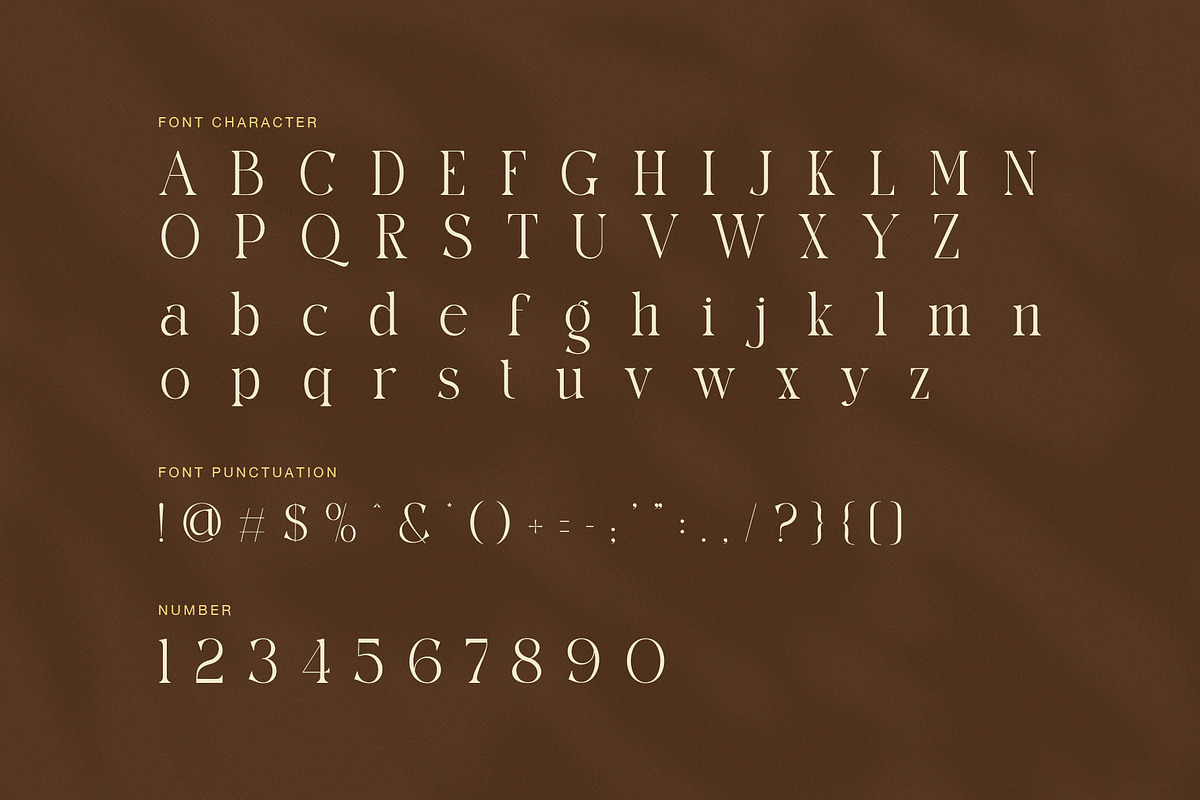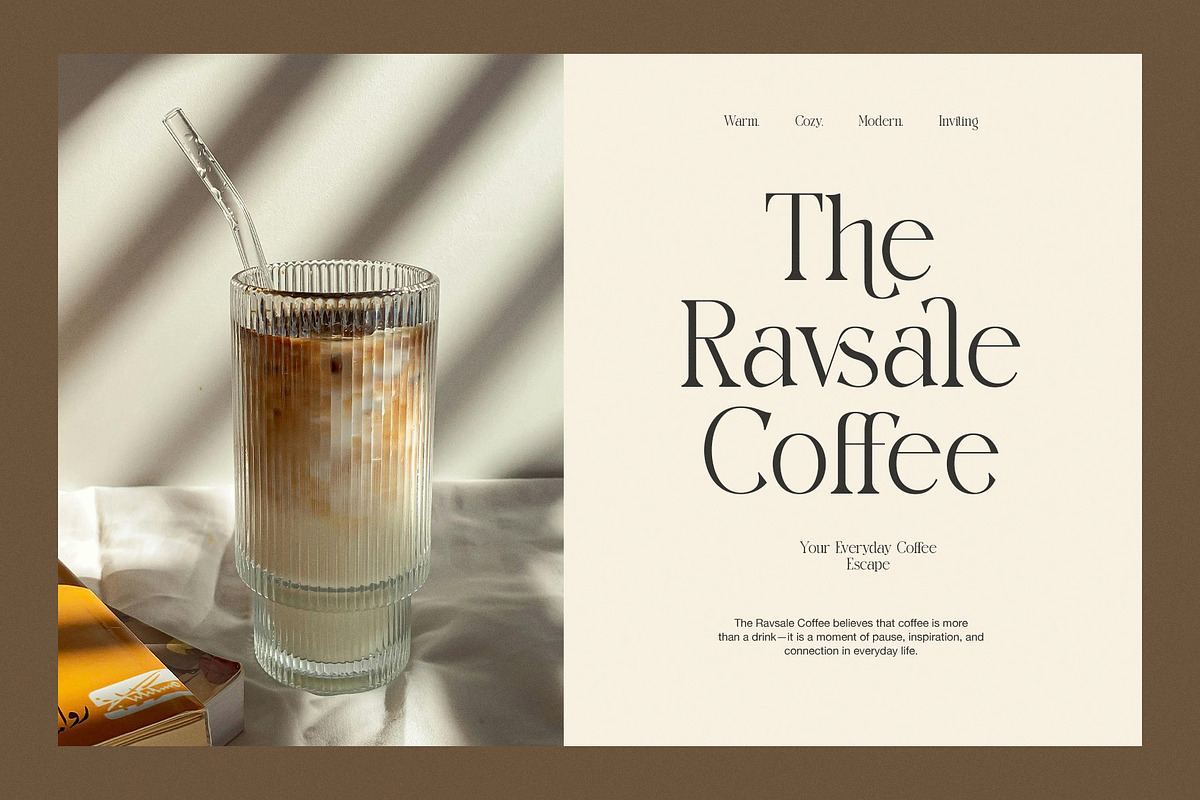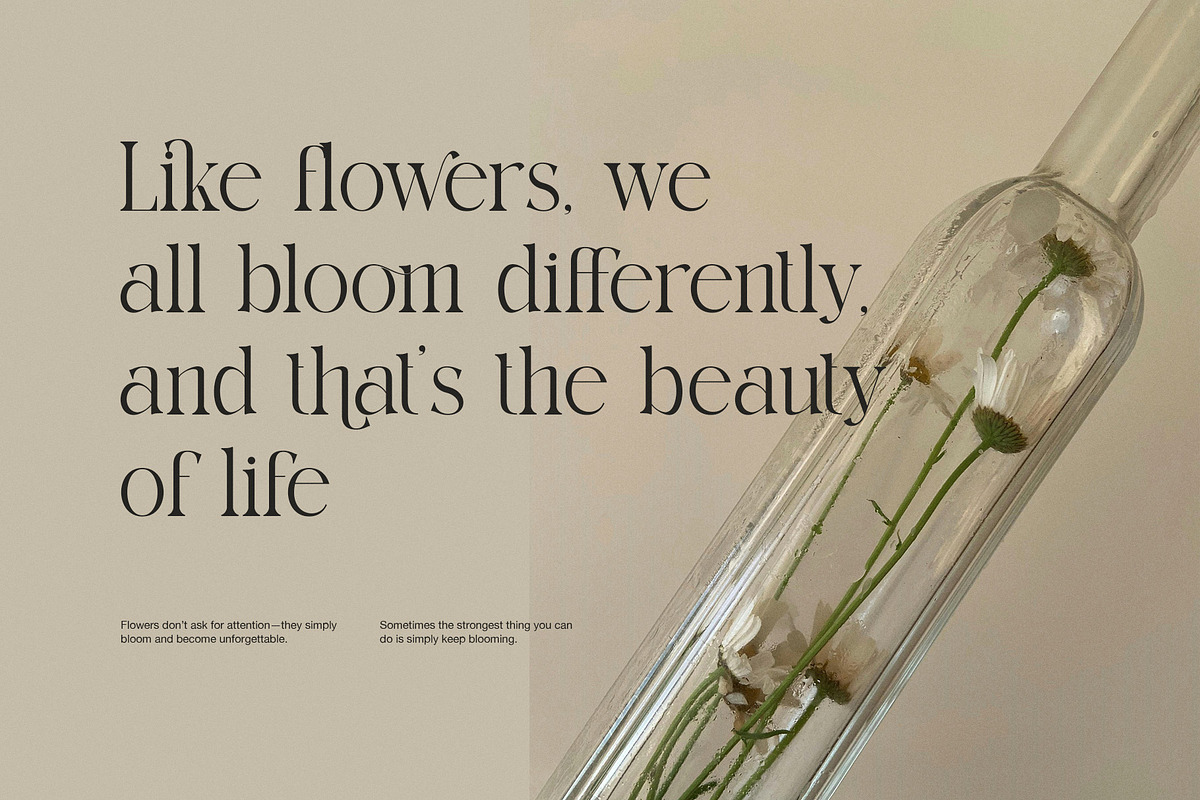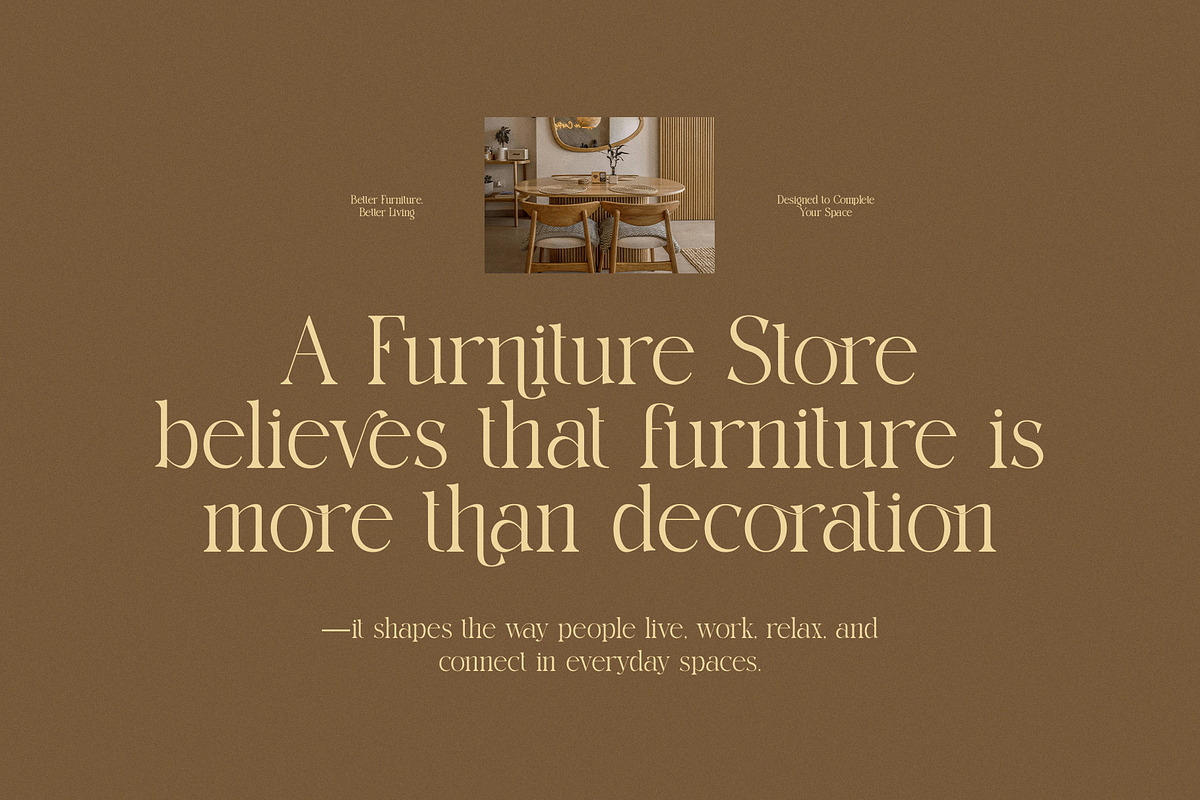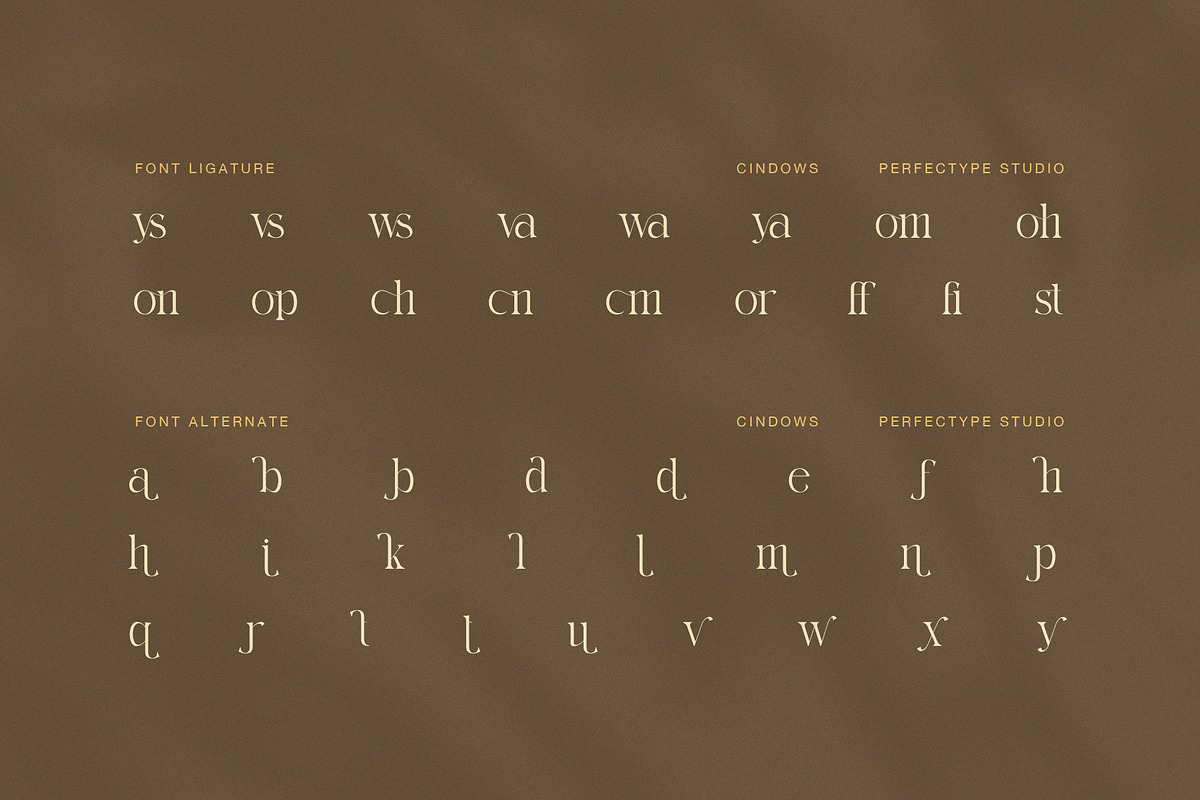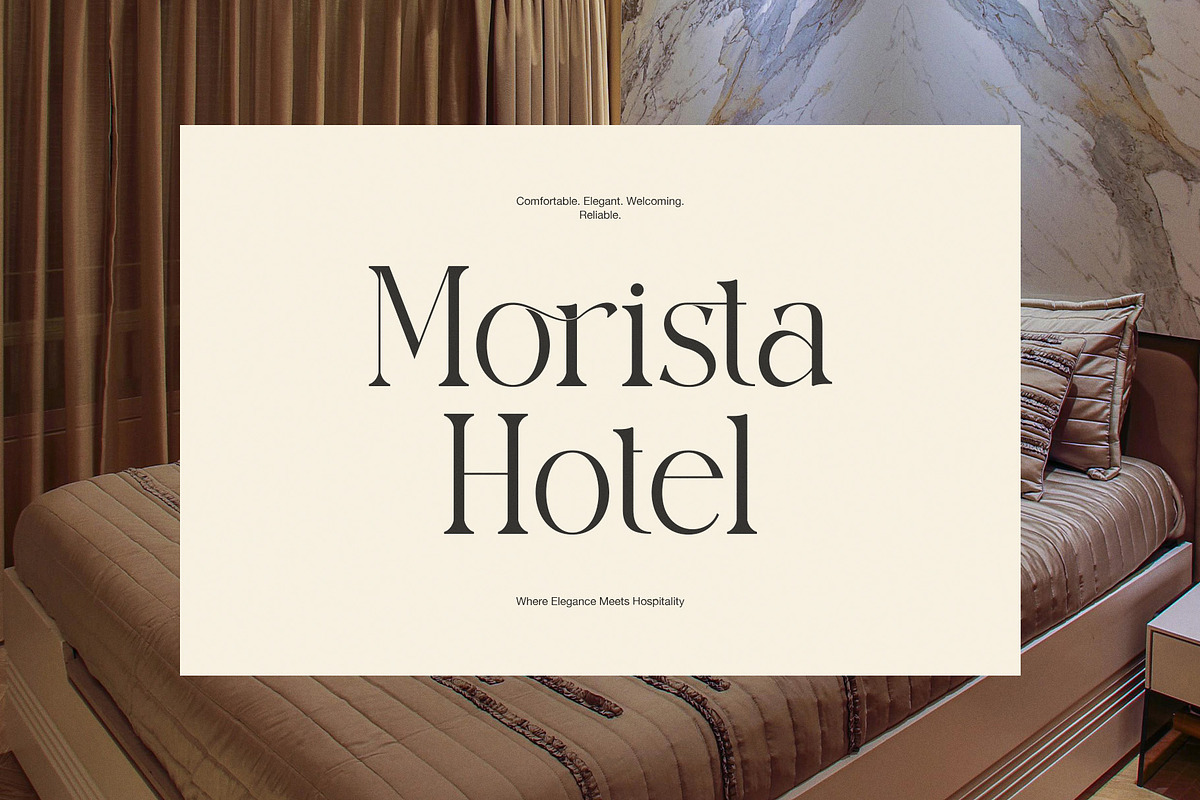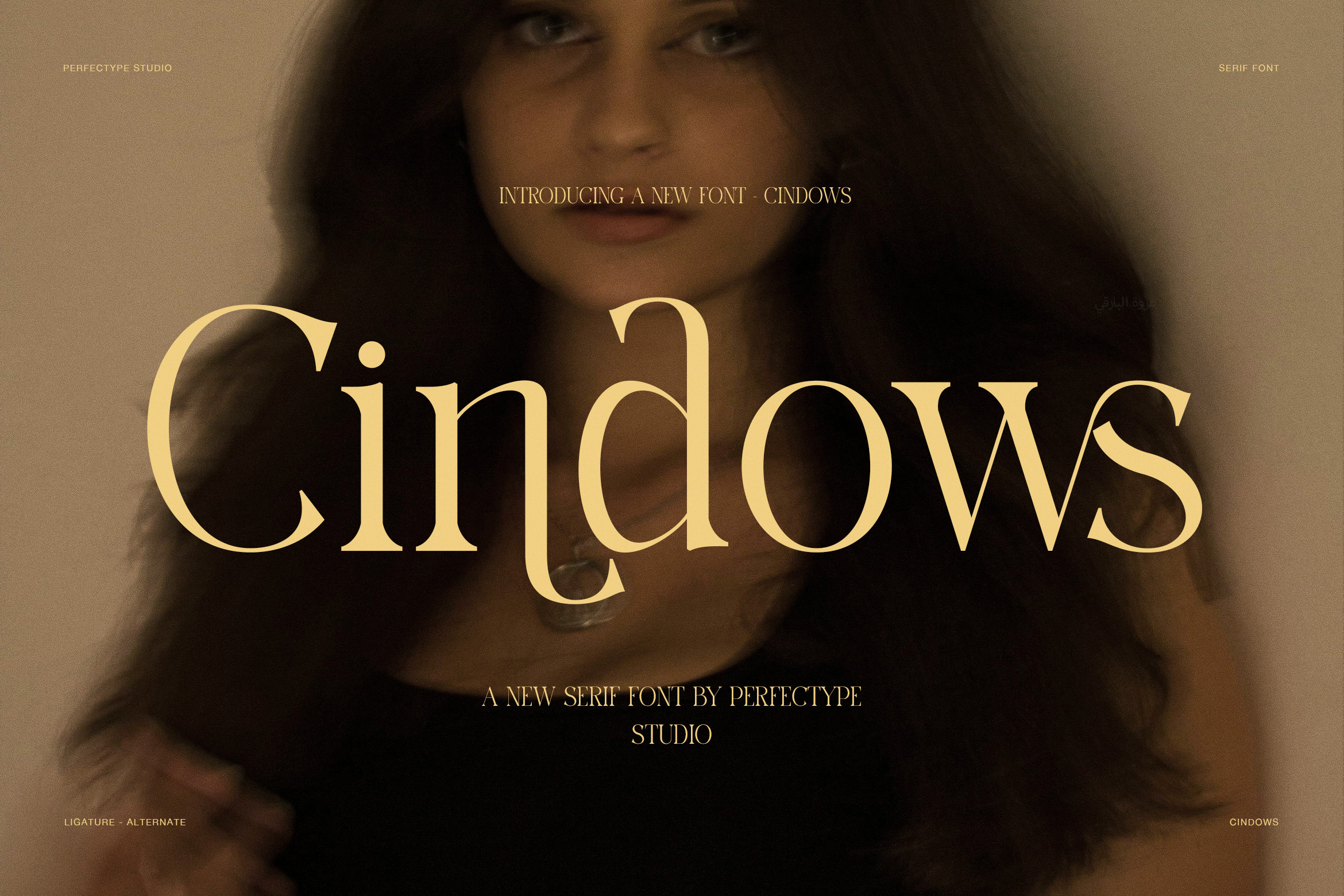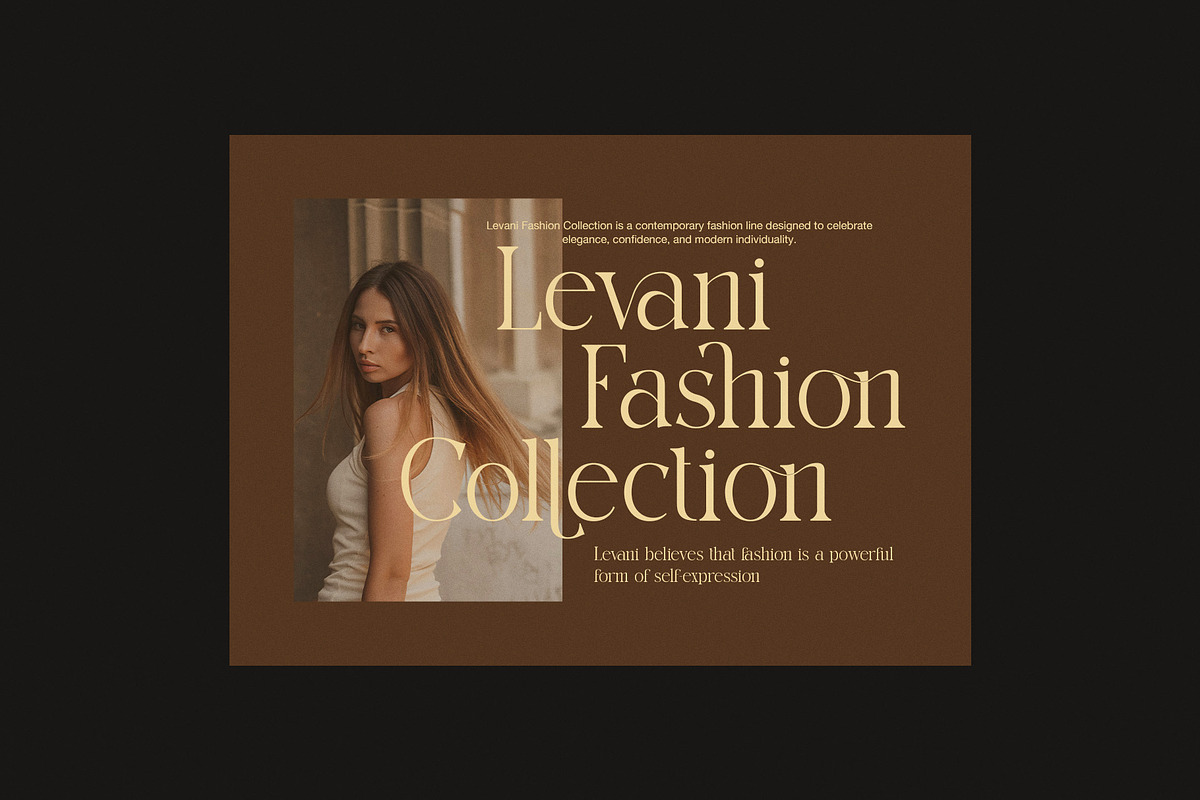
Cindows Elegant Ligature Serif Font
Cindows Elegant Ligature Serif Font is a refined display serif made for designers who want beauty, softness, and a clear luxury feel in one typeface. It blends a classic serif structure with graceful curves, fine contrast, and stylish ligature details. As a result, Cindows feels polished, feminine, and highly visual from the first glance.
This font has a light editorial rhythm. The stems are slim, the curves are smooth, and the overall spacing feels airy and calm. Because of that, Cindows works well in premium layouts where typography needs to look clean but still expressive. Moreover, the letterforms carry a soft fashion tone, so the font feels at home in beauty branding, boutique identities, hotel graphics, and elegant packaging.
One of the strongest parts of Cindows is its ligature and alternate set. These extra characters give the font a more custom look without making it hard to read. In addition, several letters have delicate ending strokes that add movement and charm. Therefore, short titles, logos, and brand names can look more exclusive and memorable.
Cindows is especially useful for designers who build visual identities with a soft luxury mood. It looks beautiful on fashion campaigns, furniture branding, floral concepts, coffee packaging, hotel presentations, and editorial covers. At the same time, it still feels modern, so it can move easily between classic and contemporary design directions.
Why Cindows stands out
Elegant serif style with a luxury mood
Decorative ligatures for a custom look
Alternate characters for more variety
Clean contrast for editorial use
Soft feminine tone with modern balance
Ideal for logos, headlines, and branding
Best uses for Cindows
fashion branding
beauty packaging
hotel identity
boutique logos
editorial design
floral branding
coffee shop menus
furniture campaigns
social media visuals
luxury product presentation
If you need an elegant ligature serif font that feels gentle, stylish, and premium, Cindows is a smart choice. It gives your design a graceful voice; meanwhile, it keeps enough clarity for professional work. So, whether you are building a boutique logo, a hotel identity, or a fashion headline, Cindows helps every word feel more refined, modern, and memorable.